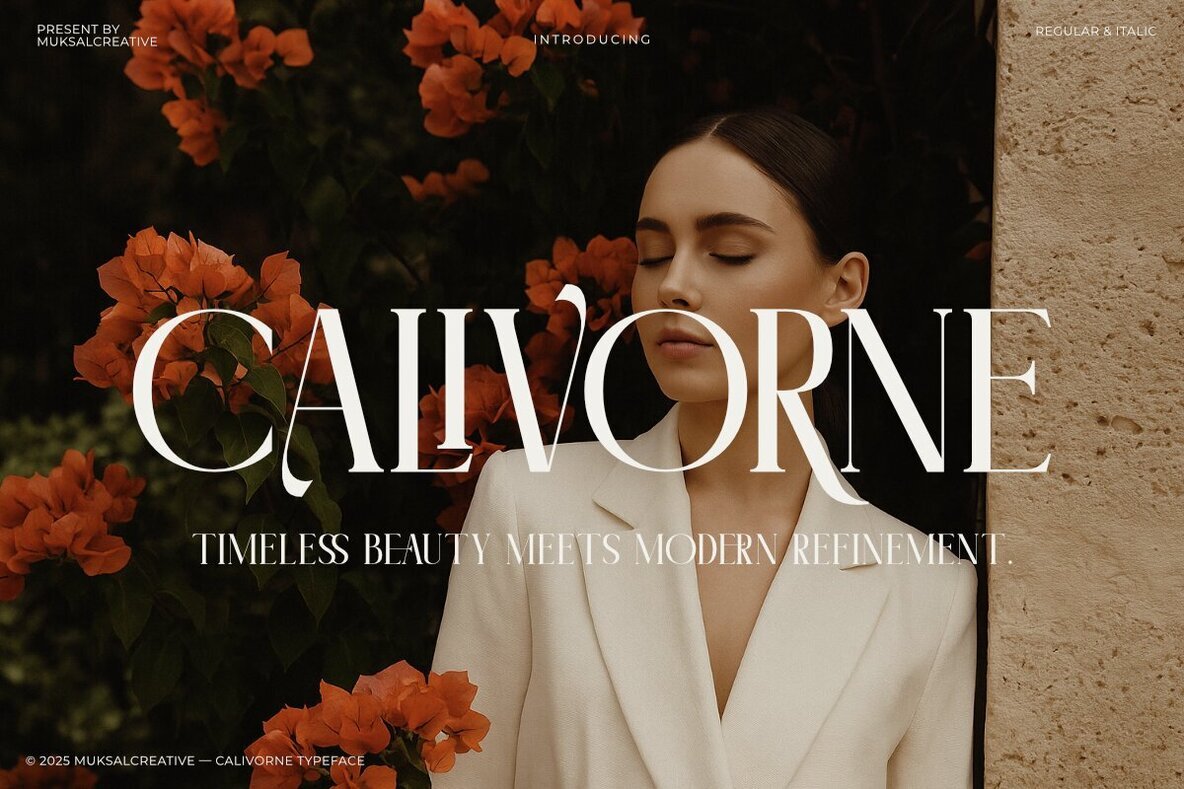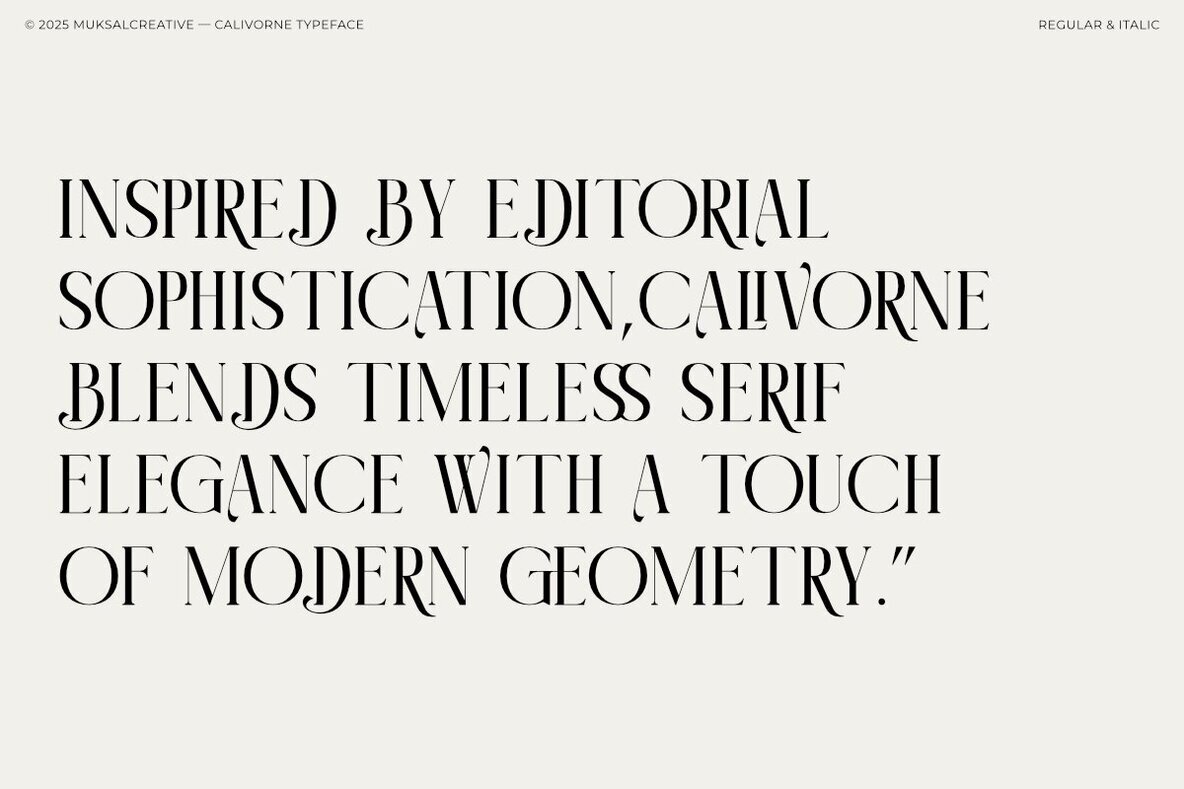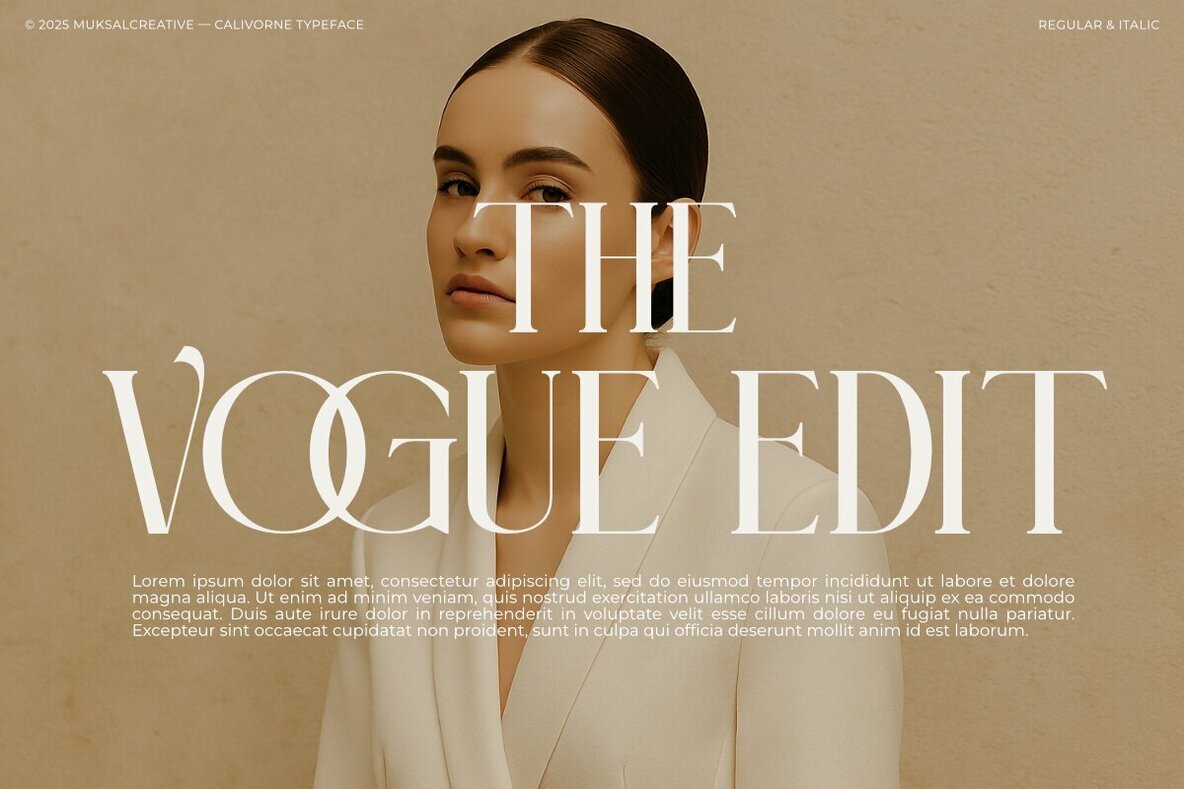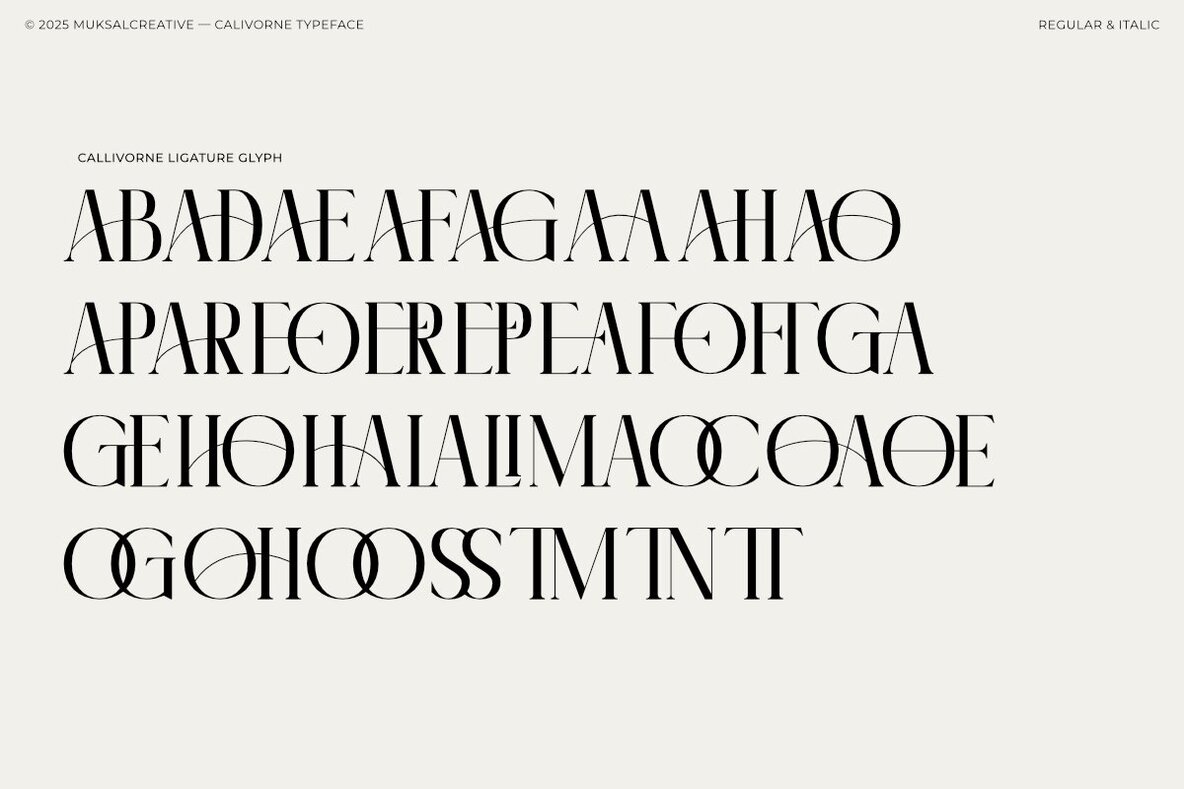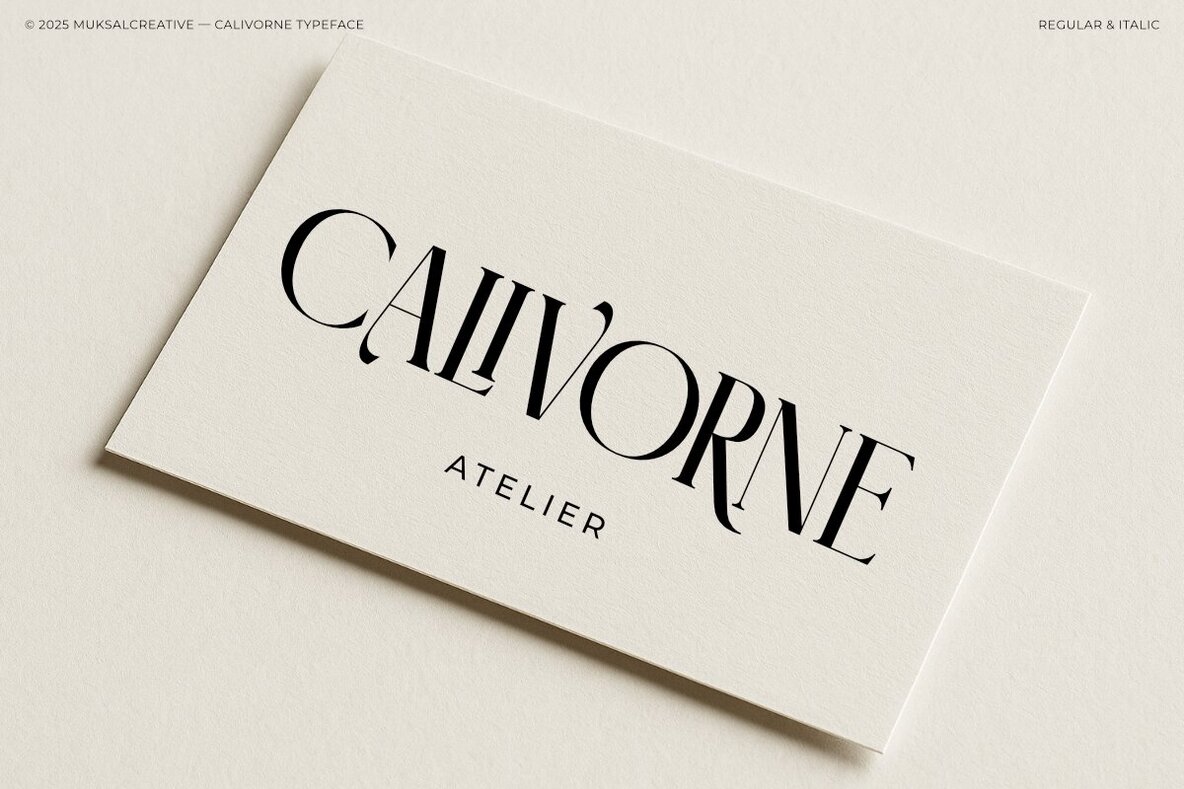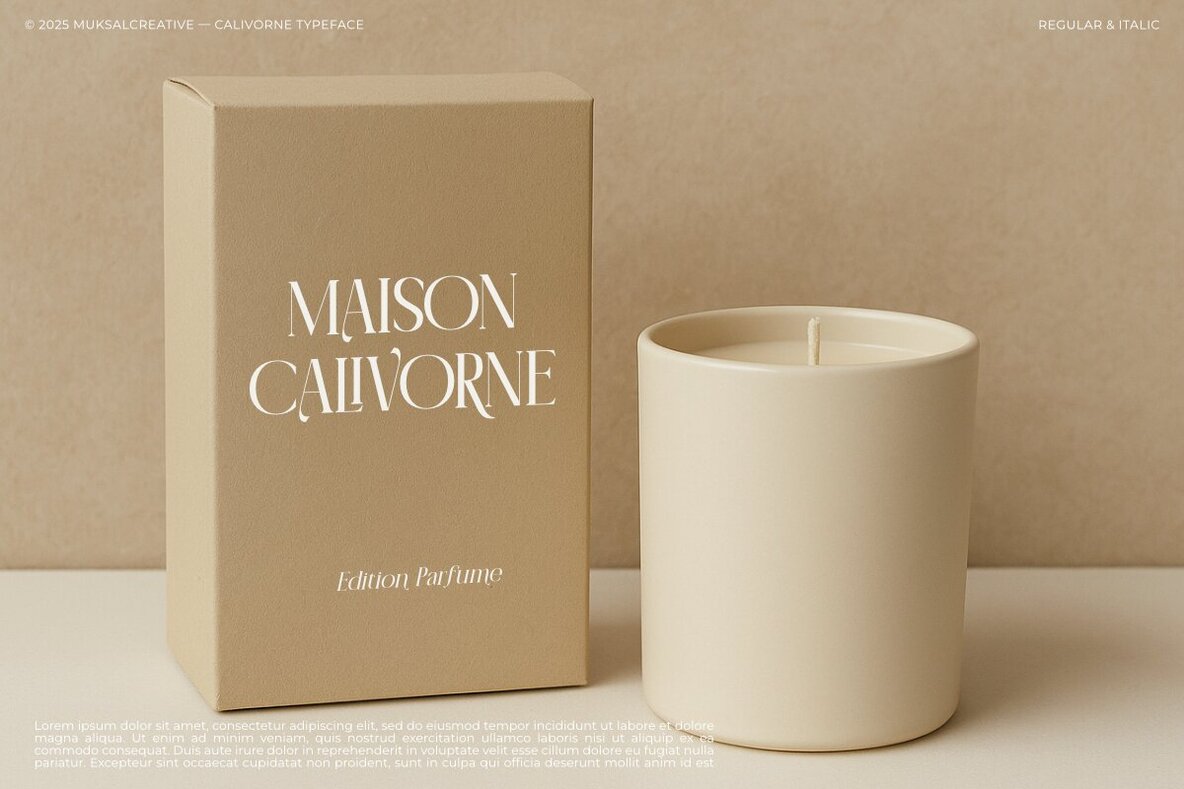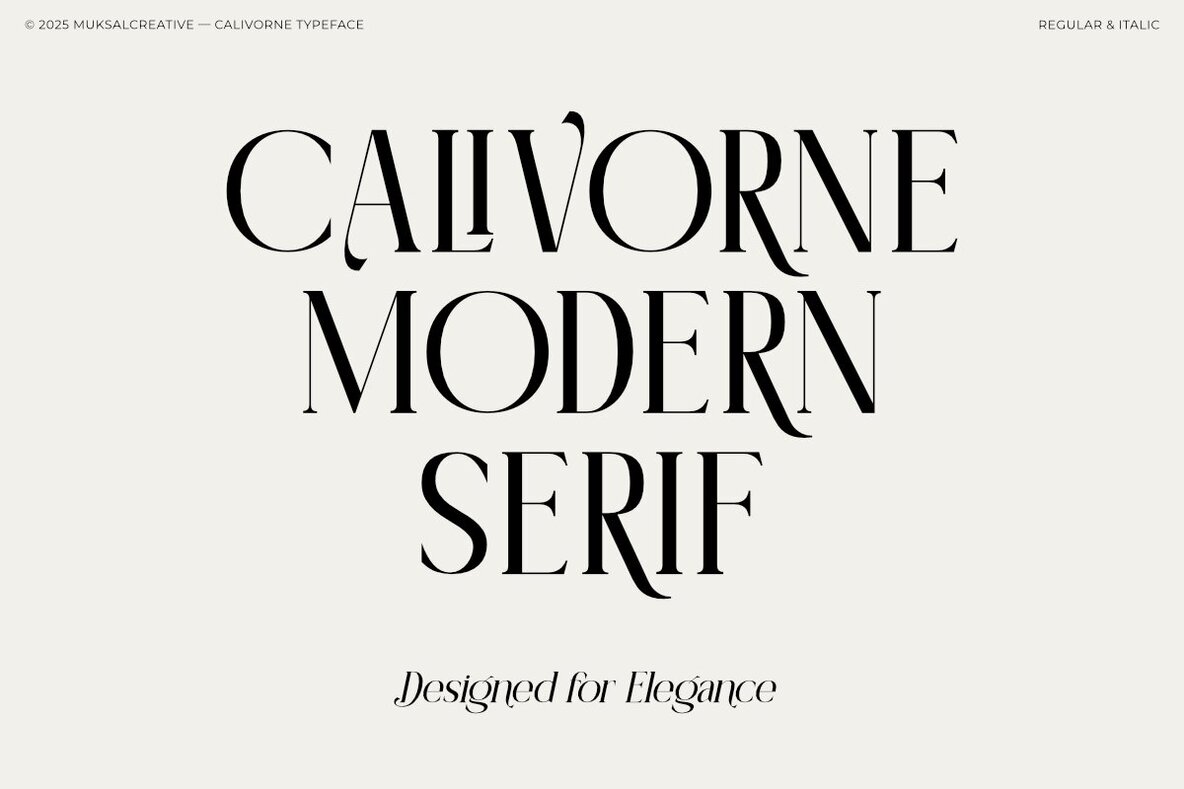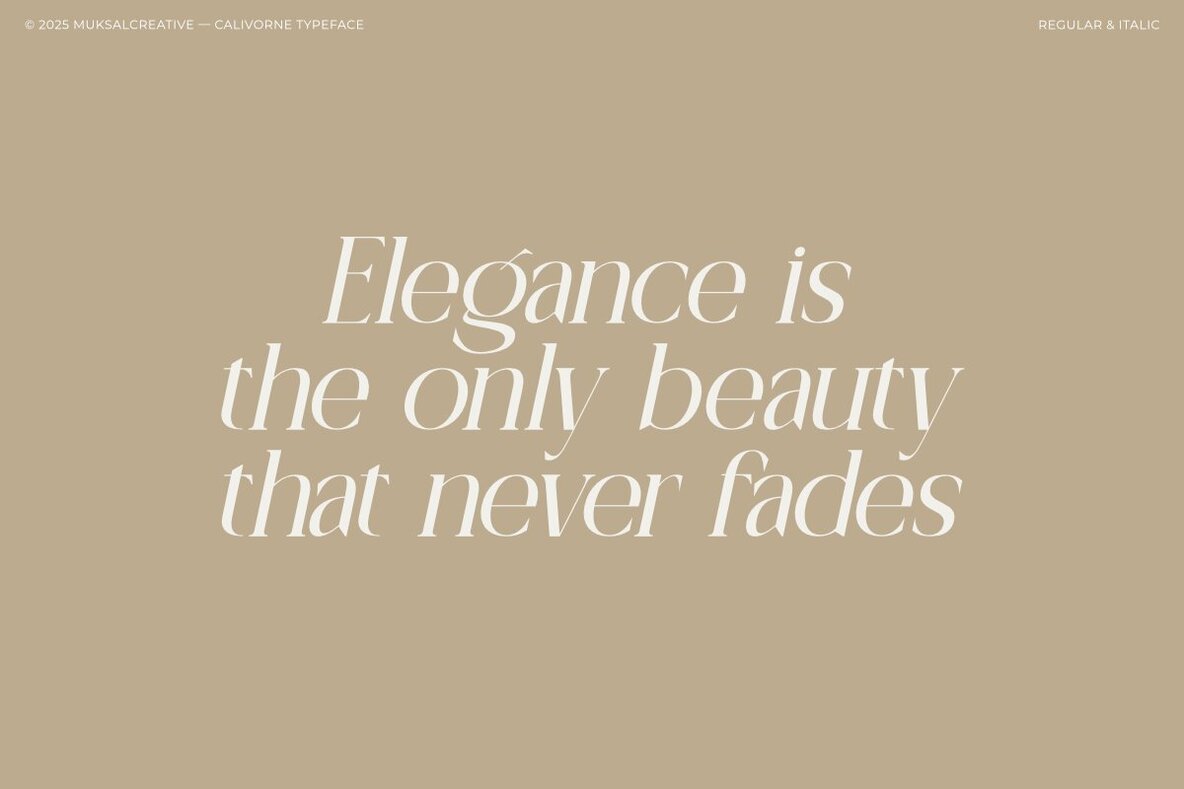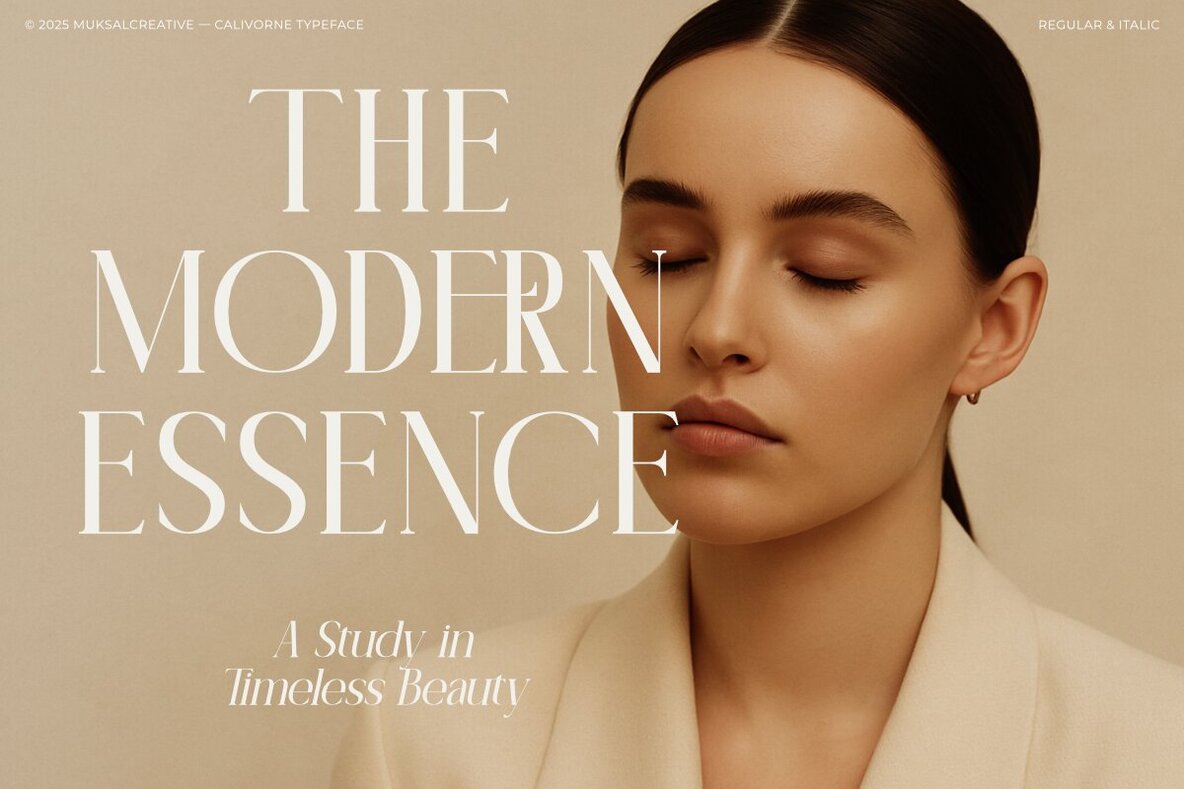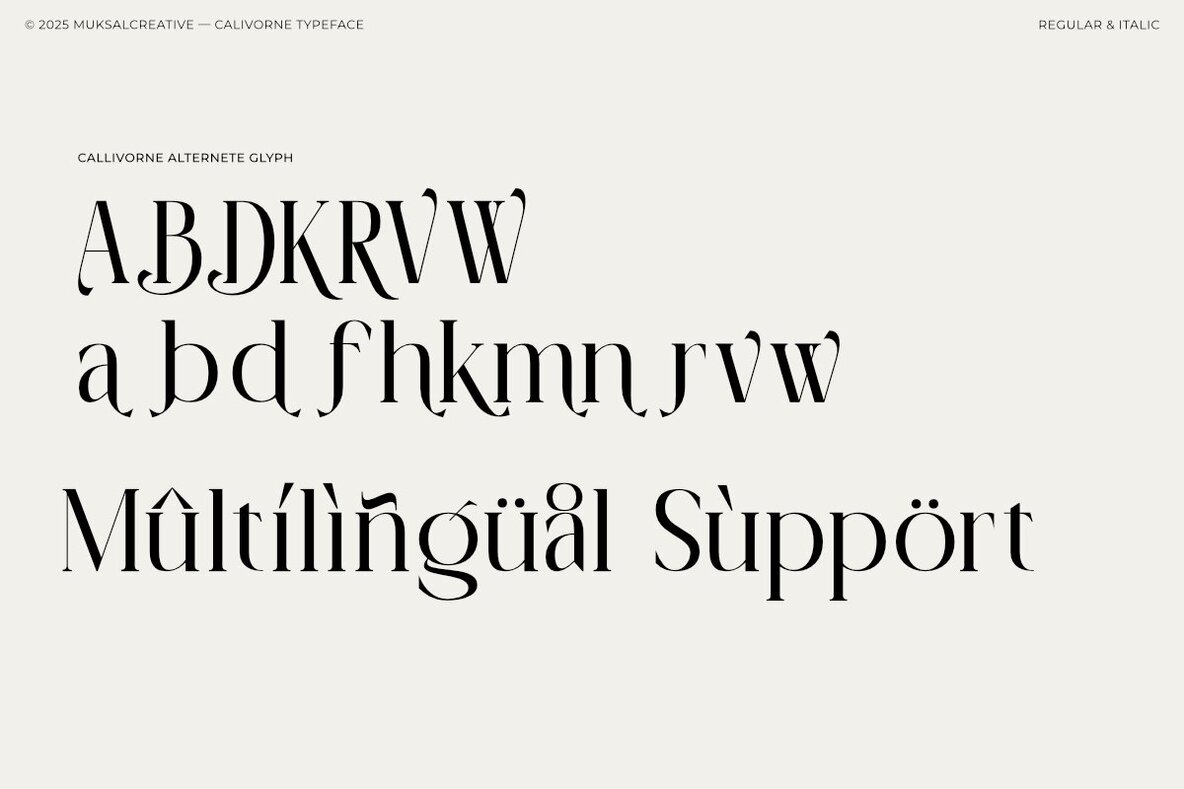
Calivorne Font
expand_font Calivorne Font Embrace timeless elegance with Calivorne, a serif typeface blending classic refinement and modern sophistication. Serif,High Contrast,Chic,Contrasted,Didone,Sophisticated,Glamorous,Luxury,Editorial Look,Neoclassical,Elegant,Fashion,Refined,Sharp,Fashion Explore Exceptional Fonts for Digital and Traditional Media Fontpath offers a large variety of fonts for every designer, all at affordable prices and in multiple formats. Browse our best in class fonts today for all your creative needs, you can find everything you need right here at our site! Fonts,sans,sans serif,retro,script,decorative,title,FontPath 20140312040223 Fontpath offers 200,000+ of the most professional fonts found online, start downloading today! Real-Time Font Discovery at Fontpath